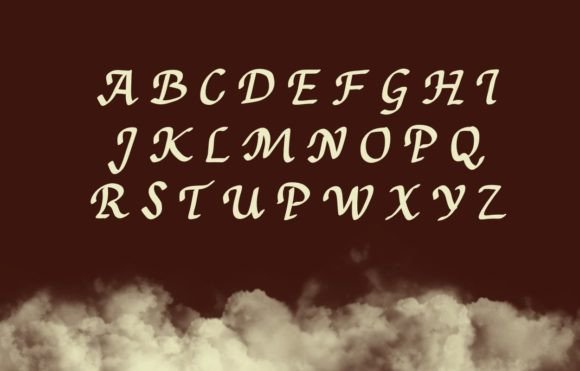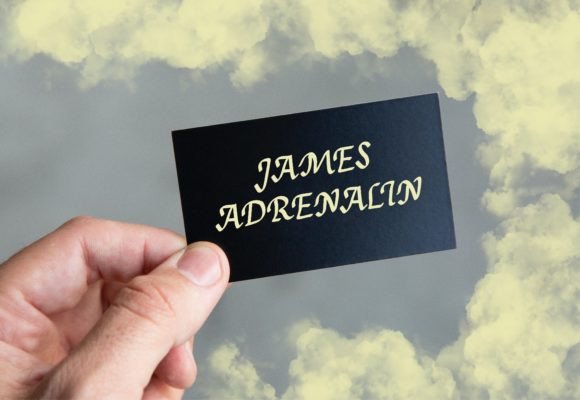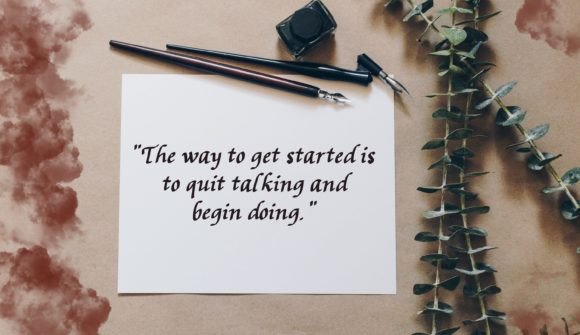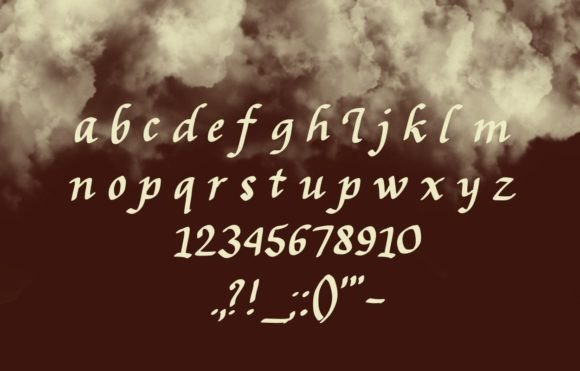
Scribber Font
About Scribber Font
“Scribber” is a stylish and friendly handwritten font that possesses a unique charm, capable of transforming any design idea into a standout creation. Its effortless elegance and friendly demeanor make it a perfect choice for a variety of projects, including wedding invitations, greeting cards, logos, business cards, and any other design that could benefit from a handwritten touch.
The font’s handwritten style adds a personal and authentic feel to your designs, creating a warm and approachable atmosphere. Whether you’re working on elegant wedding stationery, heartfelt greeting cards, professional business branding, or any other project, “Scribber” enhances the visual appeal of your designs, making them captivating and memorable.
“Scribber” stands out due to its versatility and adaptability. Its stylish yet friendly appearance allows it to complement different design themes and aesthetics. Whether you’re aiming for a sophisticated and polished look or a more casual and relaxed vibe, this font can be customized to suit your specific creative vision.
By incorporating “Scribber” into your projects, you’re infusing them with a touch of elegance and warmth. Its stylish handwritten script adds character and personality, making your designs visually appealing and relatable to your audience. Whether you’re a designer, an event planner, or an individual working on personal projects, “Scribber” provides you with a versatile and charming font choice to elevate your creative endeavors and create a lasting impression on your viewers.